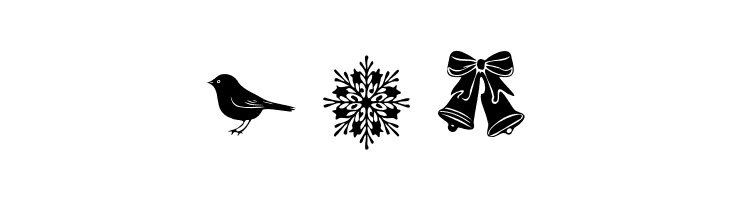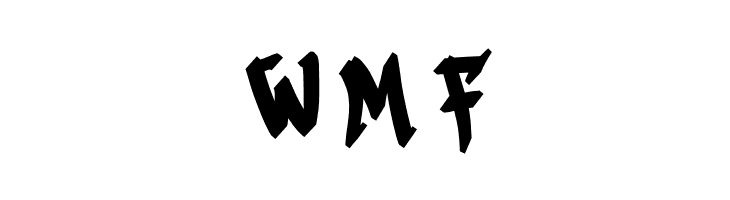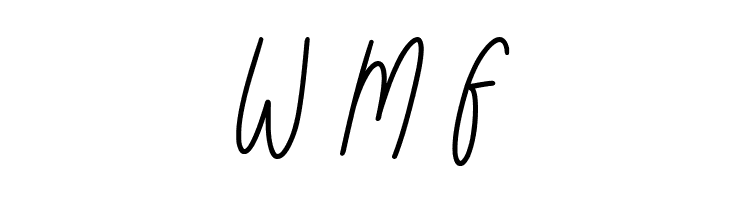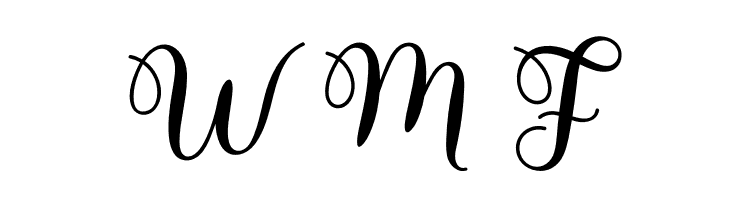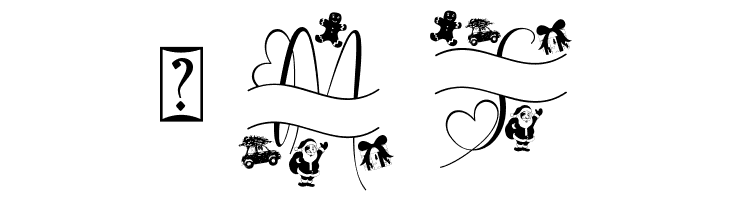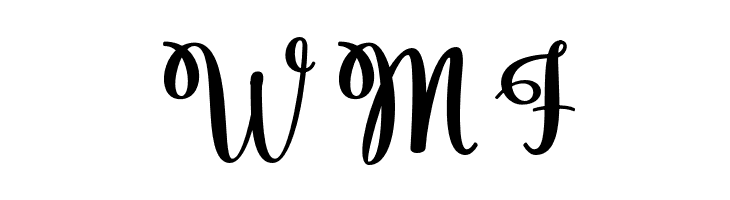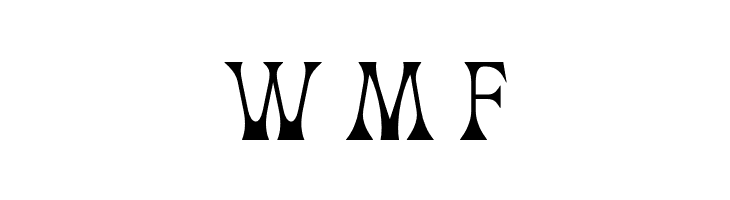
A festive script font with Christmas tree motifs on uppercase letters and numbers.
A bold, playful font with a festive, whimsical style.
A fluid and elegant script font with smooth, flowing strokes.
A bold, decorative font with star embellishments, perfect for festive themes.
A festive icon set with bold, playful Christmas and winter symbols.
A bold, decorative font with whimsical loops and curves.
A bold, angular font with a gothic influence and dramatic flair.
A playful and energetic script font with elongated, flowing lines and a casual feel.
Whimsical, festive script with ornate swashes and bold, flowing lowercase.
A bold, brush-script font with a festive, hand-drawn look.
A decorative serif font with playful, curly accents and a festive vibe.
Festive script font with Christmas-themed decorations.
Bold, festive handwritten script with playful curves.
A bold, festive display font with cloud or snow accents.
A bold, decorative display font with playful, festive character shapes.
Ornate script font with festive, swirling strokes.
Ornate, italic script with festive, decorative flourishes.
Festive, decorative font with Christmas motifs and monogram frames.
Bold, decorative script with festive, hand-lettered style.
Decorative, festive script with bold, rounded strokes and whimsical uppercase swirls.
Whimsical handwritten script with festive, decorative loops.
Ornate, heart-themed script with festive and romantic flair.
Bold, festive handwritten script with decorative swashes.
A whimsical, handwritten script with tall, looping forms and festive flair.
Decorative serif font with high contrast and festive, ornamental style.
Playful, bold script with hand-drawn, festive style.
Bold, decorative script with festive, handwritten style.
Bold, bubbly font with snow-topped letters for festive themes.
Ornate script font with festive, swirling embellishments.
Bold display font with antler decorations for a festive look.
Bold decorative font with festive star patterns and strong outlines.
Festive, bold display font with Santa-themed decorations.
Festive, bold display font with snowflake and star decorations.
Bold, festive display font with decorative holiday patterns.
Festive, patterned display font with bold, outlined characters.